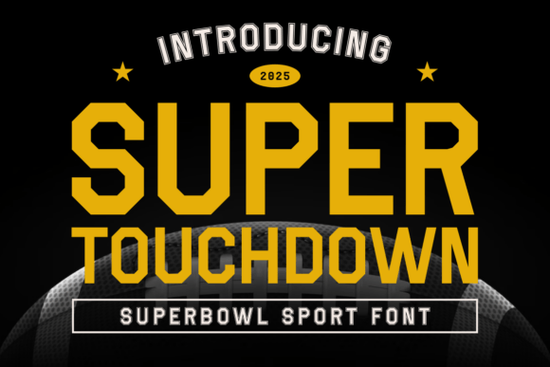
If you're creating designs for football season whether it's team merch, game-day posters, or Super Bowl party invites you need a font that matches the energy of the sport. That’s where Super Touchdown Font comes in. Designed with bold, geometric letterforms and sharp edges, it captures the intensity and excitement of American football without sacrificing readability. Whether you’re a small business owner printing custom tees, a crafter making vinyl decals, or a designer working on event branding, this font gives your projects an authentic, high-impact look.
What makes Super Touchdown work so well for sports-themed designs?
The font’s blocky, athletic structure mirrors the physicality of football itself. Each character is built for visibility even from a distance making it ideal for banners, stadium signage, or social media graphics. Unlike overly decorative display fonts that can become hard to read at smaller sizes, Super Touchdown maintains clarity while still feeling dynamic.
It comes in three styles:
- Regular – clean and assertive, great for subheadings or secondary text
- Bold – extra weight for maximum impact in headlines and logos
- Outline – adds dimension and works beautifully over photos or colored backgrounds
This versatility means you can mix and match styles within a single design to create hierarchy and visual interest without switching to a completely different typeface.
Where can you actually use this font?
Because of its strong presence and sport-specific aesthetic, Super Touchdown shines in real-world applications like:
- Custom team jerseys and fan apparel (think print-on-demand stores)
- Game-day flyers, ticket stubs, and event programs
- Sports-themed stickers, mugs, and phone cases
- YouTube thumbnails or podcast cover art for football commentary channels
- Local league branding or youth football camp promotions
It’s also surprisingly effective for non-sports uses that benefit from a bold, energetic vibe like fitness brands, action-packed film titles, or even retro-inspired packaging. Just keep the context in mind: this font speaks “competition” and “celebration,” so it pairs best with high-energy messaging.
How does it compare to other display fonts?
If you’ve used playful fonts like Merry Christmas Duo for holiday crafts or Chalky Teacher for classroom materials, you know that tone matters. Super Touchdown fills a very specific niche: modern, masculine, and competition-driven. It’s more structured than something whimsical like Tasty Parade Duo, and less ornate than Viking Font, which leans into historical or fantasy themes.
In short, if your project needs to feel grounded in real-world sports culture not just “bold” but authentically athletic this font delivers.
Tips for using Super Touchdown effectively
To get the most out of this font, keep these practical ideas in mind:
- Pair it wisely. Avoid combining it with other heavy display fonts. Instead, use a clean sans-serif (like Montserrat or Open Sans) for body text to let Super Touchdown dominate headlines.
- Use color strategically. The Outline style pops when filled with team colors or placed over action shots of players.
- Don’t overuse it. Because of its strong personality, limit it to titles, logos, or short phrases. Long paragraphs will lose legibility and impact.
- Test at scale. Always preview your design at actual print or screen size what looks sharp on a laptop might blur on a phone thumbnail.
Ready to score with your next design?
Before you download Super Touchdown, ask yourself:
- Is my project tied to sports, competition, or high-energy themes?
- Do I need a font that’s both bold and readable at a glance?